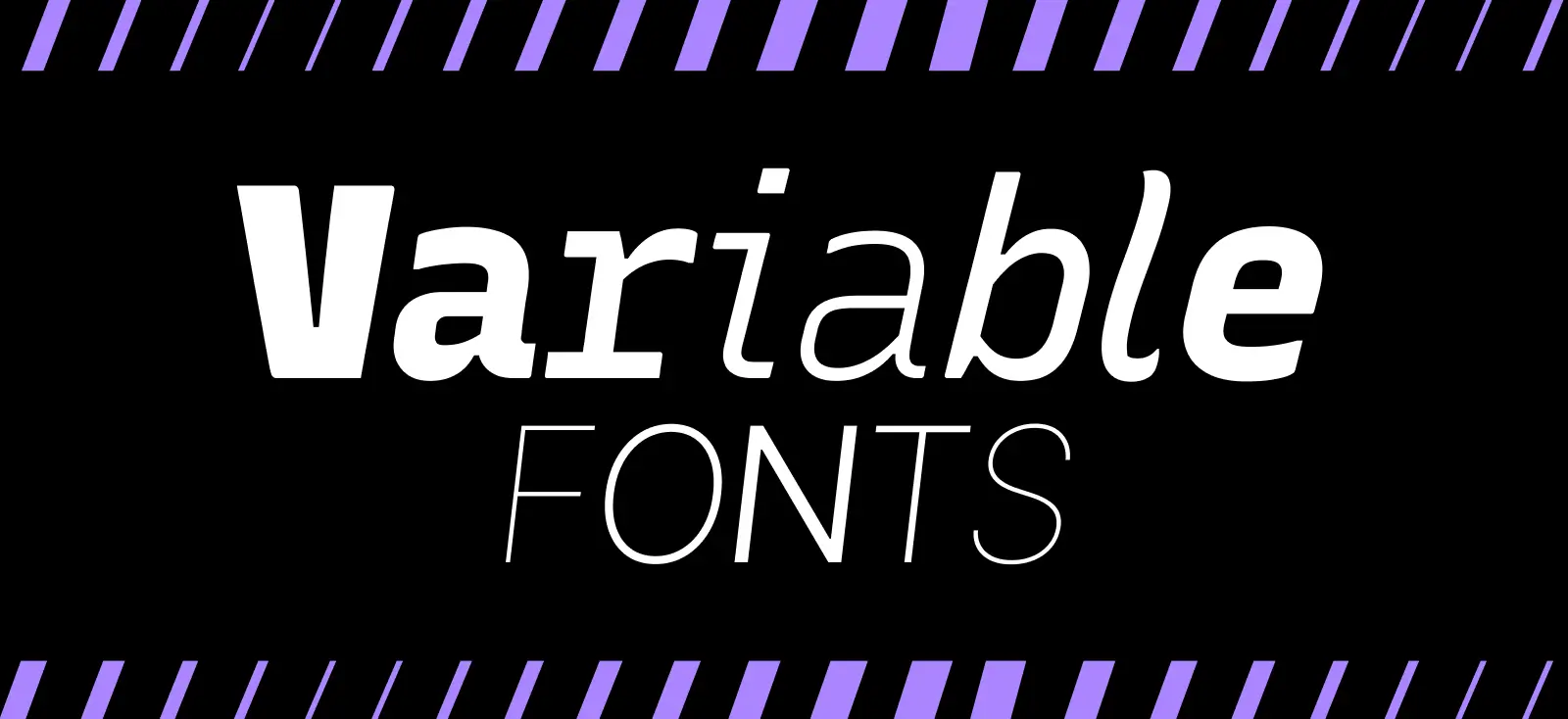
When Massachusetts General Hospital redesigned its directional signs in 2019, researchers made a surprising discovery.
Patients under stress — elevated heart rate, acute anxiety about diagnoses — lost the ability to parse serif fonts. The cognitive load of navigating an unfamiliar building while worried meant brains defaulted to pattern recognition shortcuts.
Sans-serif letterforms with tall x-heights and open counters processed 40% faster than serif equivalents at the same size.
This isn’t unique to hospitals. It’s how human vision works under any constraint: small sizes, motion, poor lighting, divided attention.
Your customer ordering lunch on a phone during their commute is in a similar cognitive state. They’re not reading your menu at a desk with good lighting and full attention. They’re glancing at a 5.4-inch screen in sunlight while walking.
Legibility isn’t aesthetic. It’s functional. And in 2026, the fonts winning this context share specific architectural features — features that variable font technology makes easier to implement and optimize than ever before.
What makes fonts legible under constraint
Three architectural elements determine whether a font remains readable when conditions aren’t ideal:
1. Tall X-height
The x-height is the ratio of lowercase letter height to capital letter height. Fonts with tall x-heights dedicate more vertical space to the letters you read most (lowercase), maximizing “readable area” per line.
Inter has an x-height of approximately 65% of cap height. Times New Roman sits around 45%. At 16px on a mobile screen, Inter’s lowercase letters occupy significantly more pixels, making them easier to resolve at a glance.
This matters most at small sizes (14–16px body text on mobile) and in motion (scrolling feeds, animated interfaces).
2. Open counters and apertures
Counters are the enclosed spaces inside letters like ‘e’, ‘a’, ‘o’. Apertures are the openings in letters like ‘c’, ‘s’, ‘n’.
When counters are narrow or apertures are tight, letters collapse into blobs at low resolution or small sizes. The ‘e’ in a condensed font can look like a smudge at 14px on a budget Android phone.
Source Sans 3 was designed with generous counters specifically to prevent this collapse. Even at small sizes or on low-DPI screens, letterforms remain distinct.
3. Optical sizing
Traditional fonts are designed at one master size and scaled up or down. This creates problems.
A font optimized for 72pt headlines looks spindly and fragile at 12pt body text—the strokes are too thin to resolve cleanly. A font optimized for 12pt body text looks clunky and cramped at 72pt headlines—the spacing is too generous and details lack refinement.
Helvetica Now solved this with three optical size variants:
- Micro (6–12pt): Opened counters, increased x-height, wider spacing
- Text (12–24pt): Balanced proportions for comfortable reading
- Display (24pt+): Tighter spacing, refined details that only resolve at large sizes
Your logo in Helvetica Now Display looks crisp on a billboard. That same logo at business card size needs Helvetica Now Micro to maintain legibility. Using the wrong optical size creates either cramped small-scale rendering or loose, unrefined large-scale presence.
Variable fonts explained: One file, Infinite flexibility
Variable fonts represent a fundamental shift in how typography works.
Traditional static fonts require separate files for each weight. Want Regular, Medium, Semibold, and Bold? That’s four files.
Each file adds to page load time, increases hosting costs, and requires separate licensing (in some cases).
Variable fonts pack the entire weight spectrum into one file with continuous axes you manipulate in real-time.
How variable font axes work
A variable font file contains “axis” definitions — typically weight, width, slant, and optical size. Instead of discrete jumps (Regular = 400, Bold = 700), you get continuous ranges (100–900).
Need a weight between Regular (400) and Medium (500)? Dial in 475.
Want slightly wider letterforms for a specific layout? Adjust the width axis from 100 to 110.
This granular control is impossible with static fonts, where you’re locked into preset weights the type designer chose.
Performance benefits
- Page load speed: One variable font file (typically 100–200KB) loads faster than four static font files (400–800KB total). This improves Core Web Vitals scores and mobile performance.
- Responsive typography: Variable fonts enable CSS tricks like adjusting weight based on viewport width. Headlines can automatically thin out on larger screens to maintain visual weight, or thicken on mobile to preserve legibility at smaller sizes.
- Animation potential: Because weight is a continuous axis, you can animate font weight smoothly — impossible with static fonts where you’d need to cross-fade between separate files.